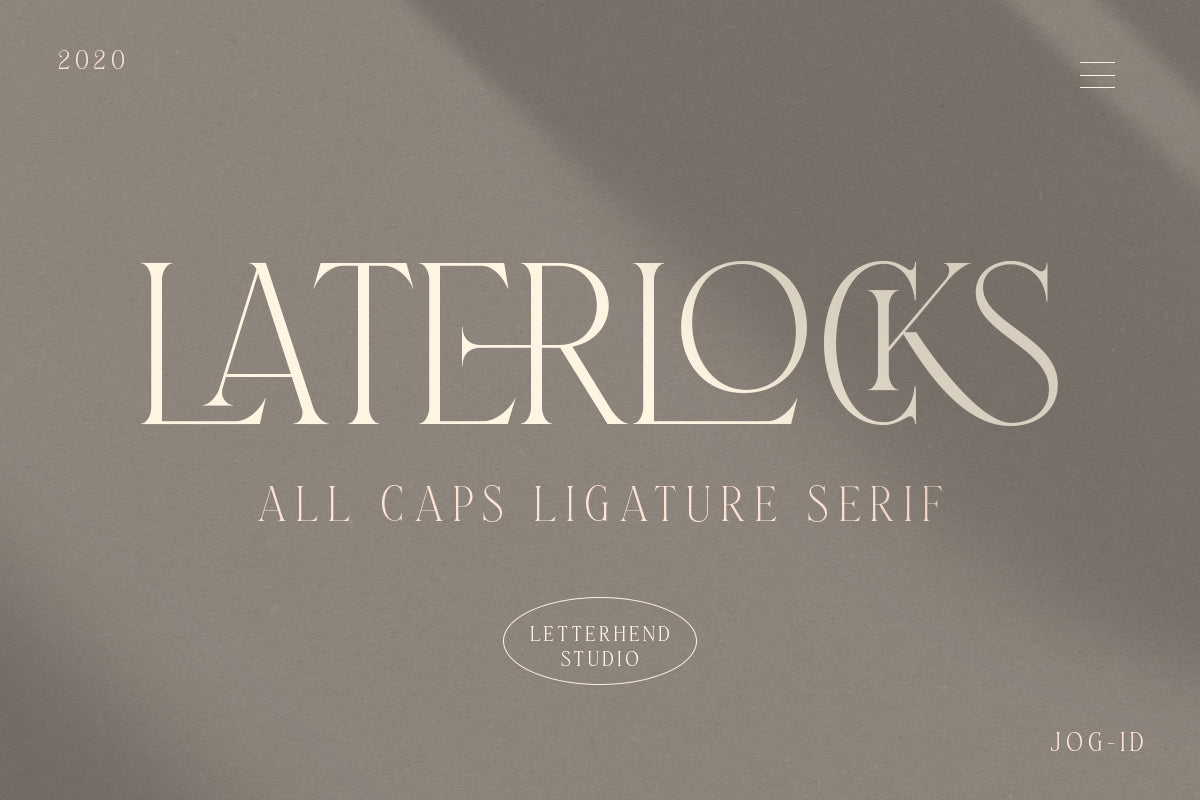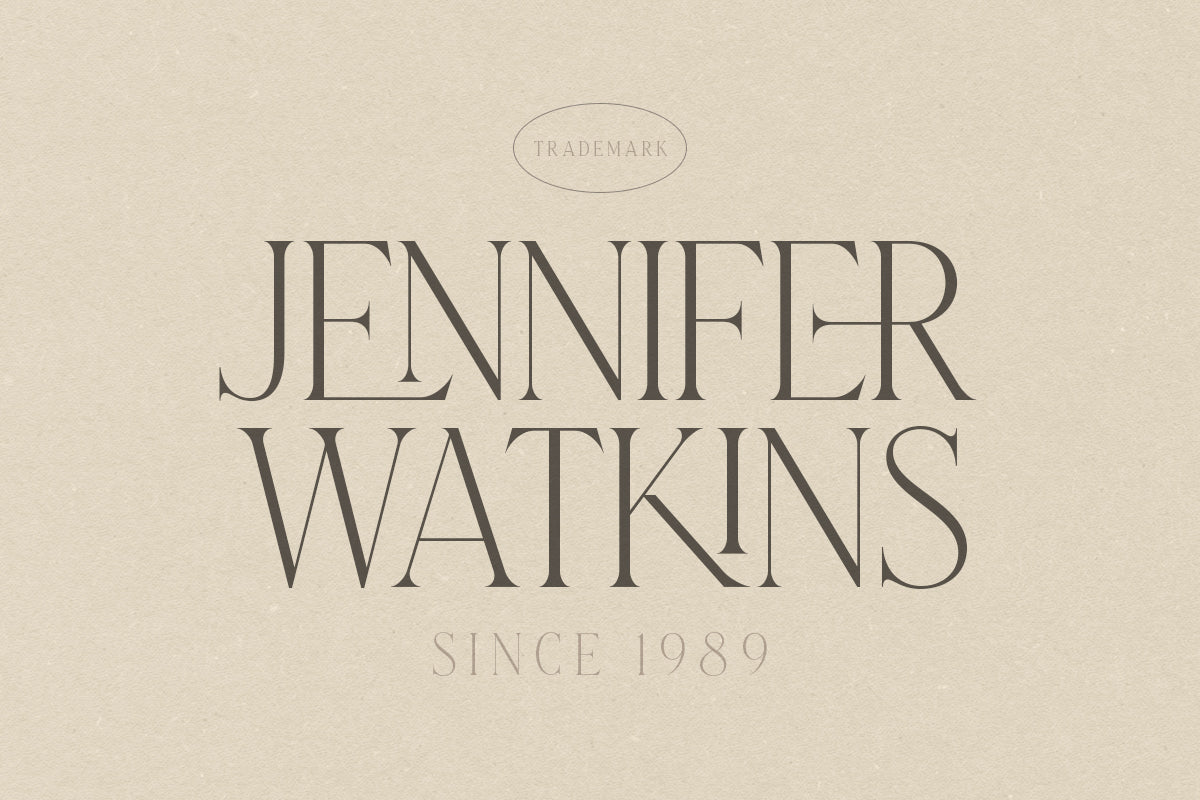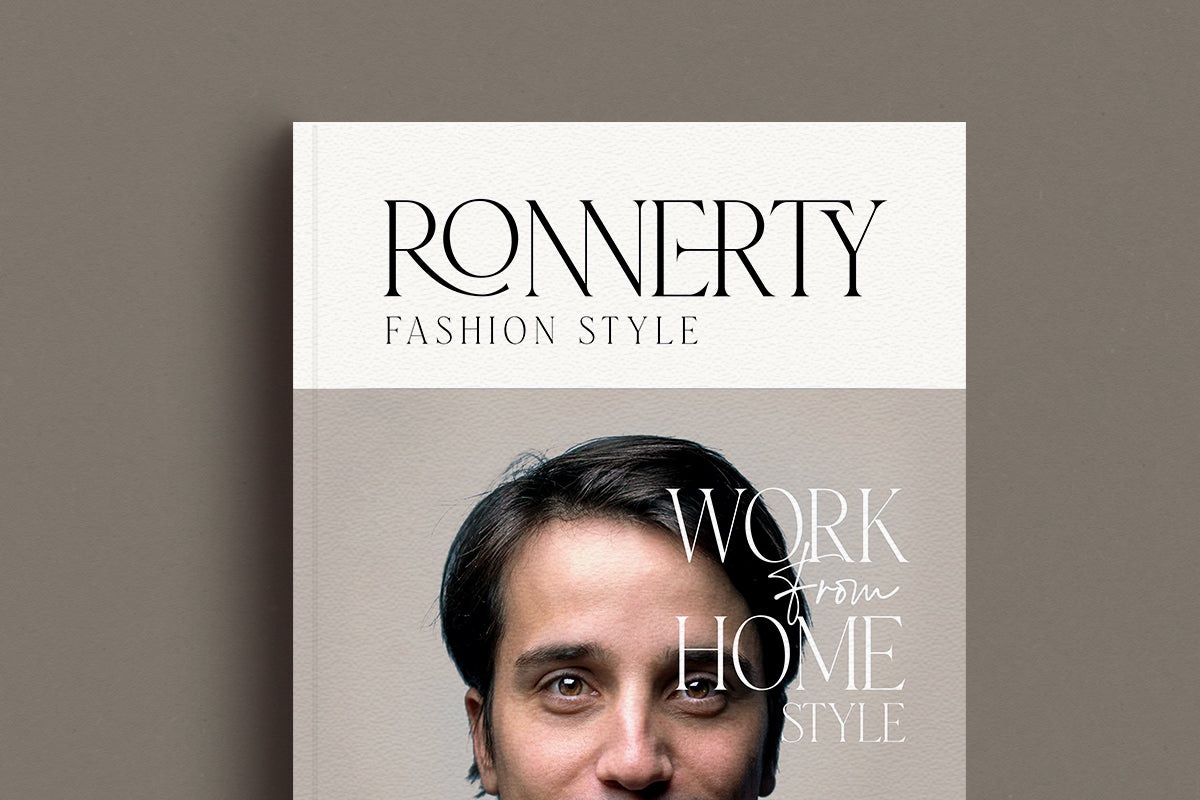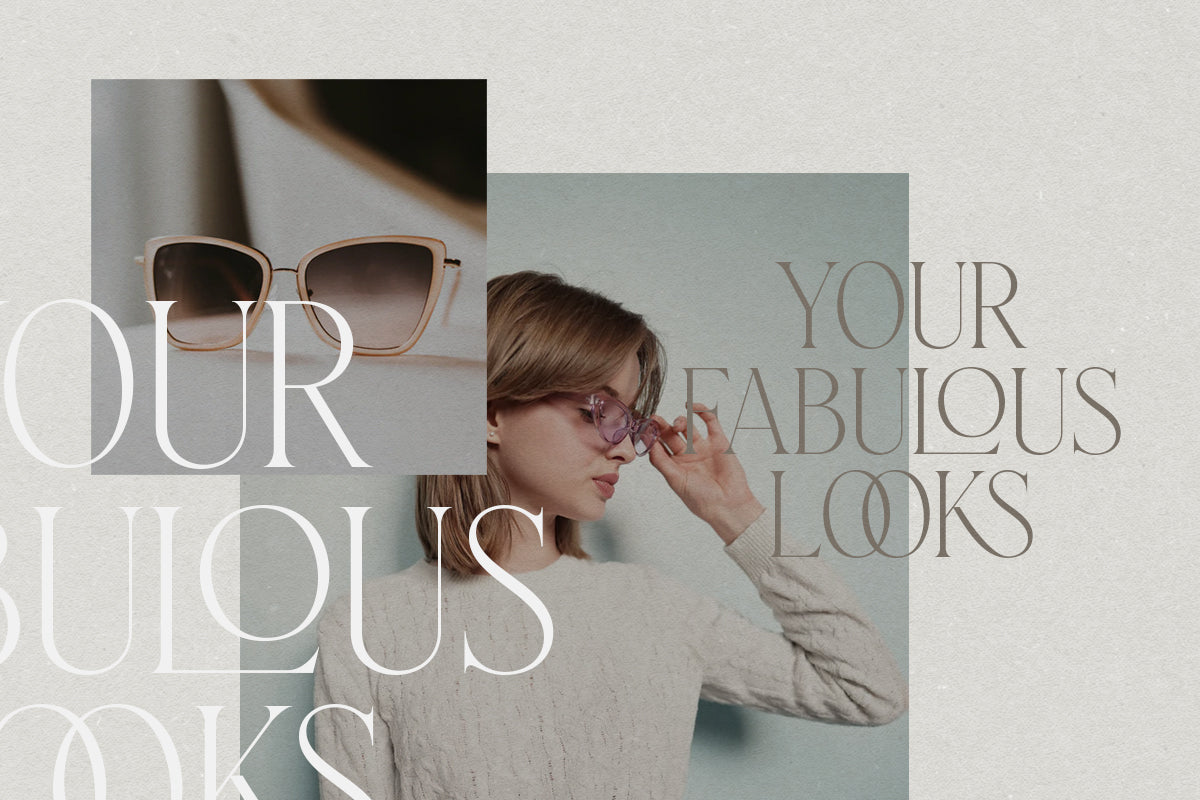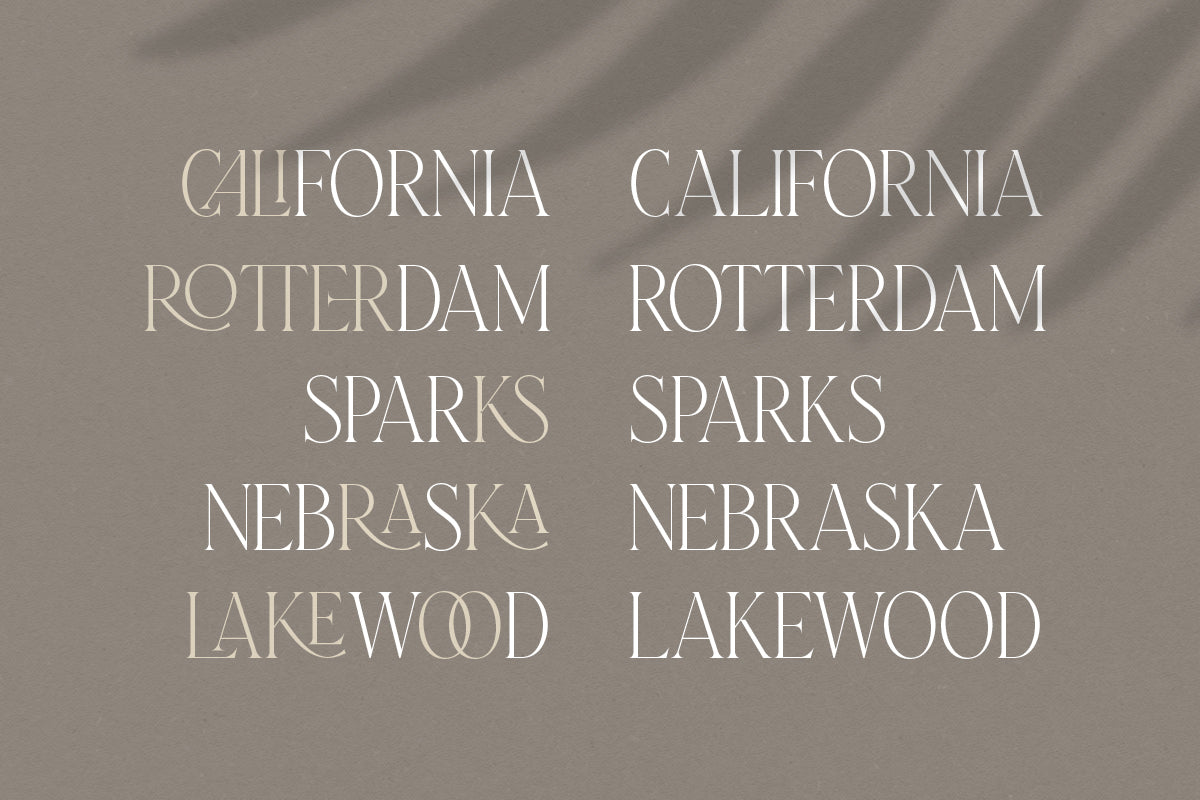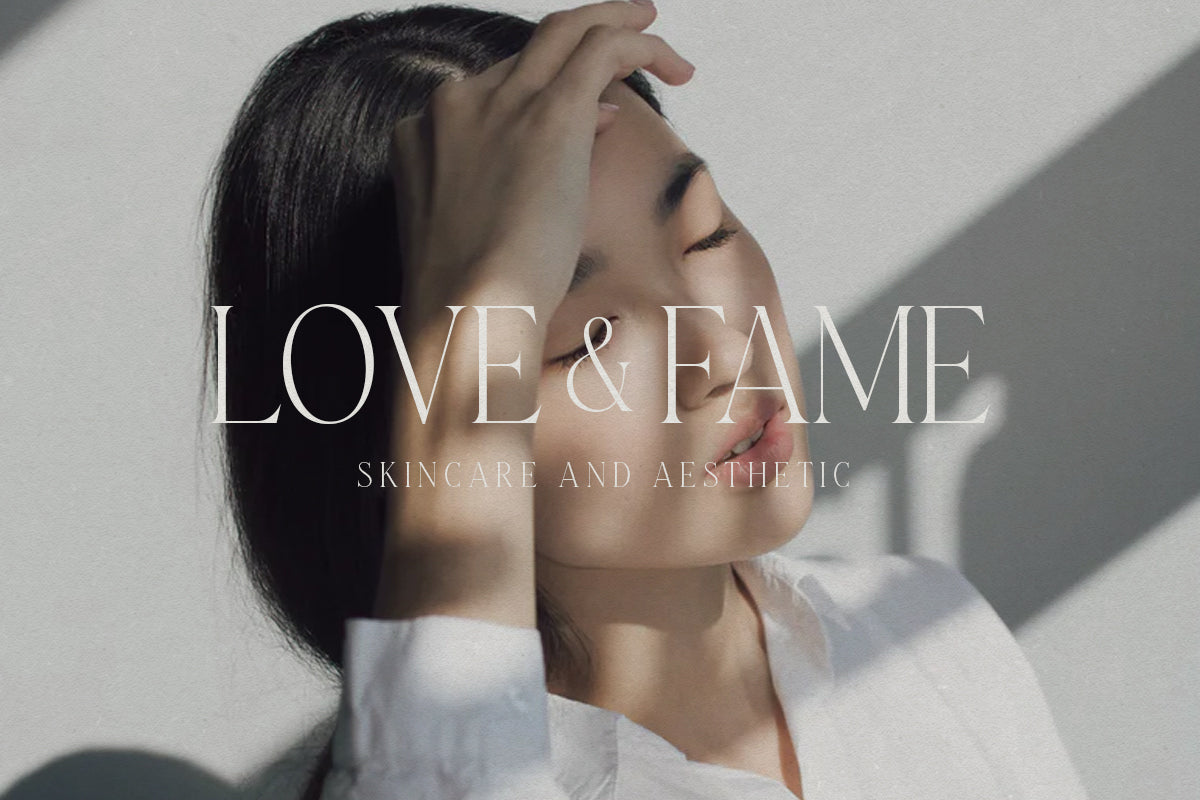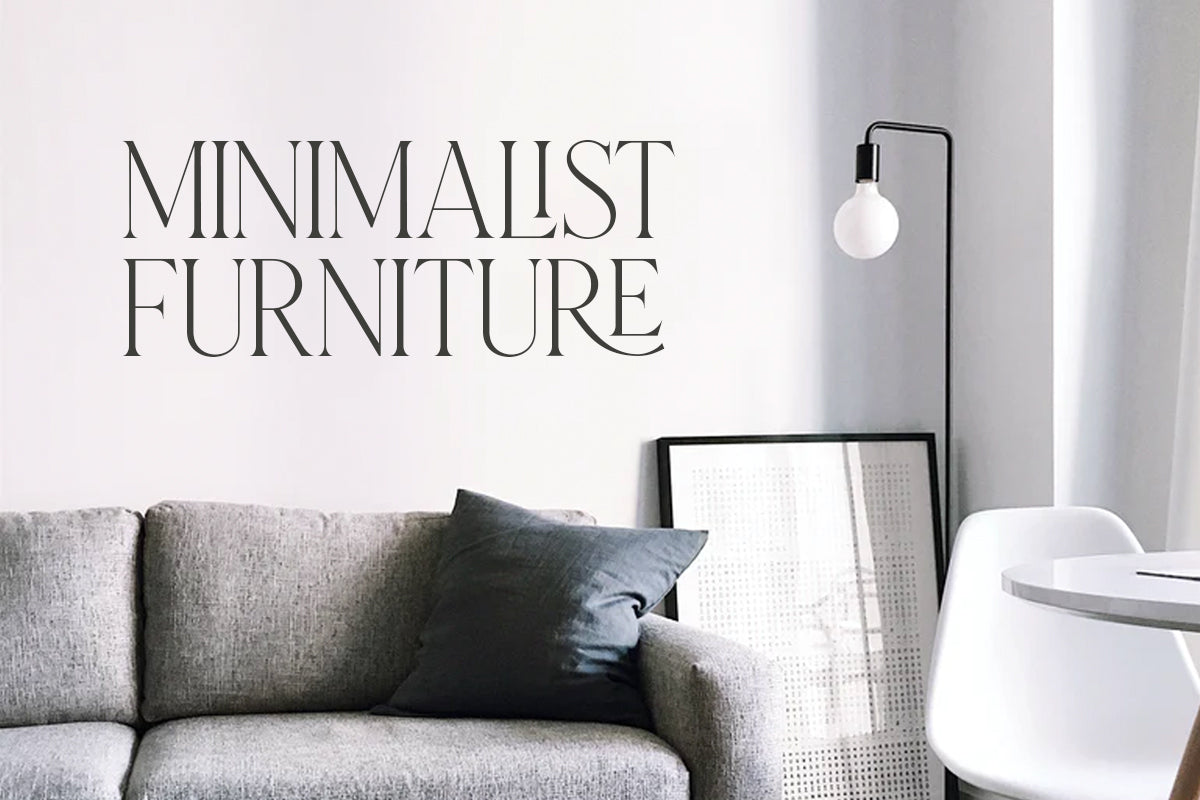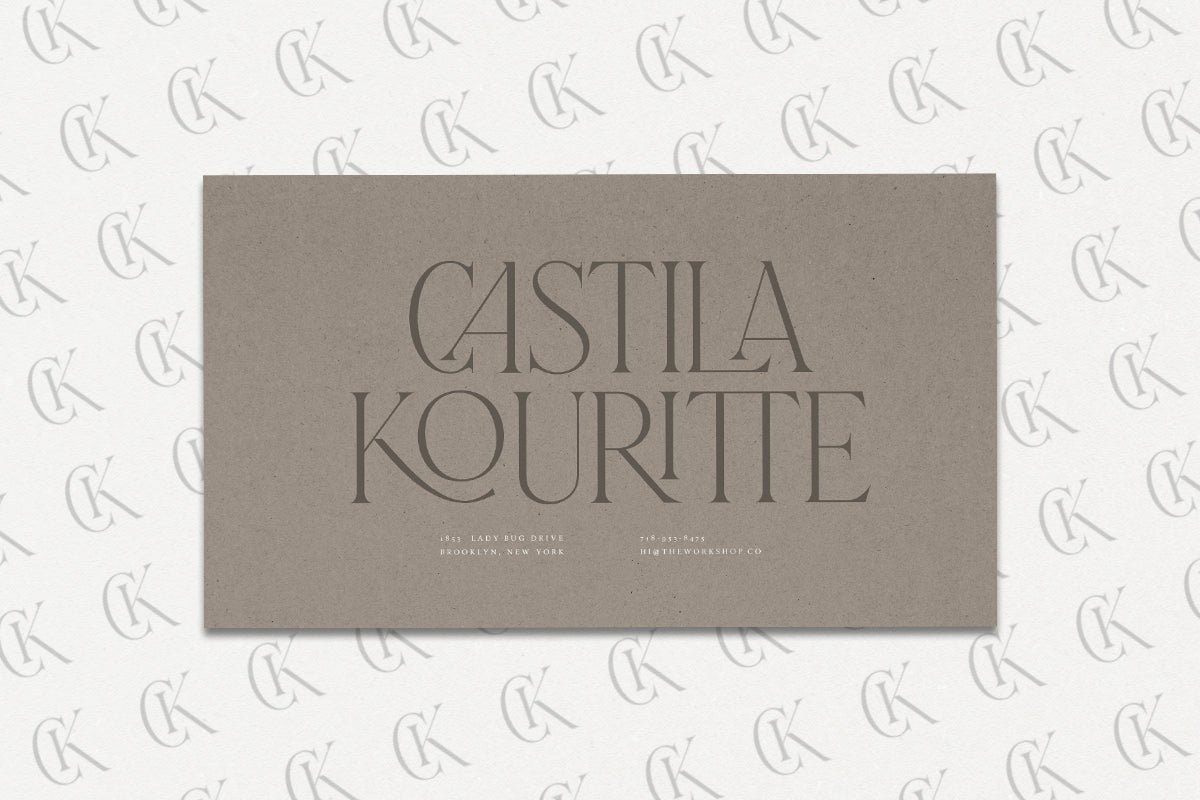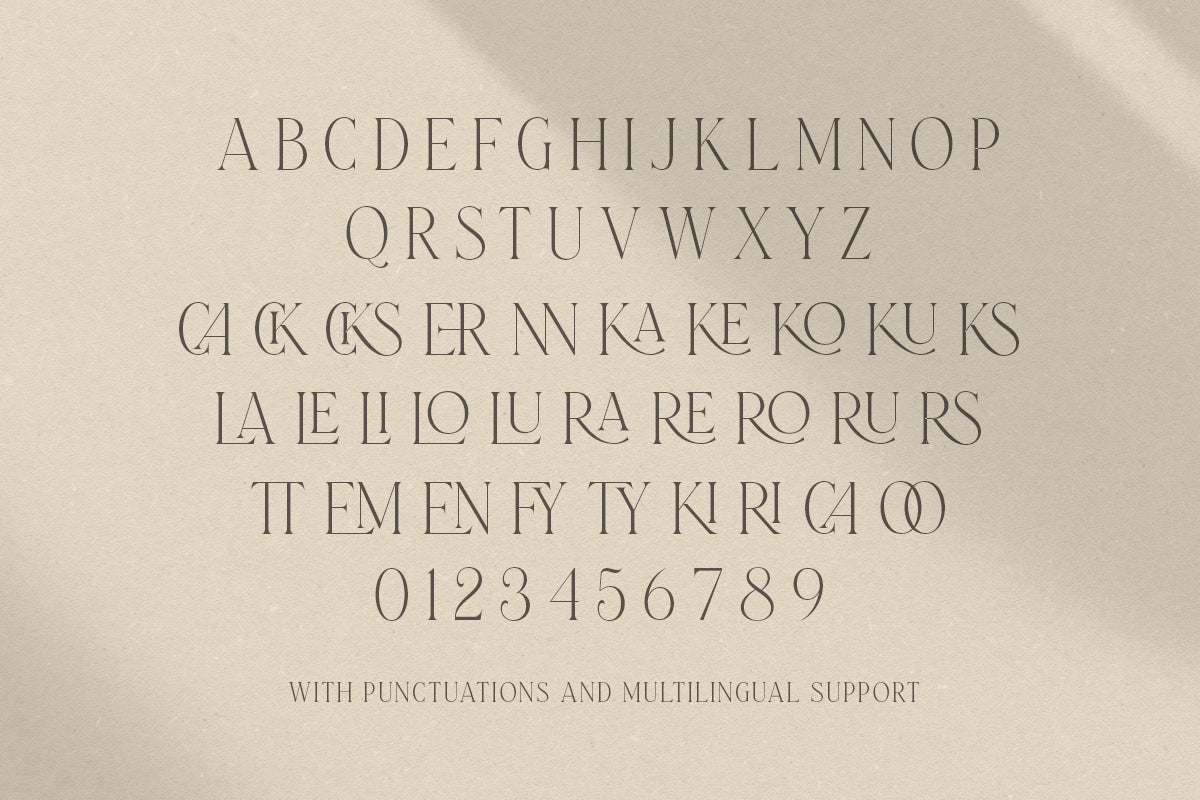
Laterlocks - All Caps Ligature Serif
Introducing, Laterlocks, A sophisticated ligature serif from us. This typeface has been made carefully to make sure its premium quality and luxury feel. The ligatures makes this typeface unique and stands out rather than the regular serif font, very suitable for logo, headline, tittle, and the other various formal forms such as invitations, labels, logos, magazines, books, greeting / wedding cards, packaging, fashion, make up, stationery, novels, labels or any type of advertising purpose.
numbers and punctuation
multilingual
ligatures
alternates
swashes